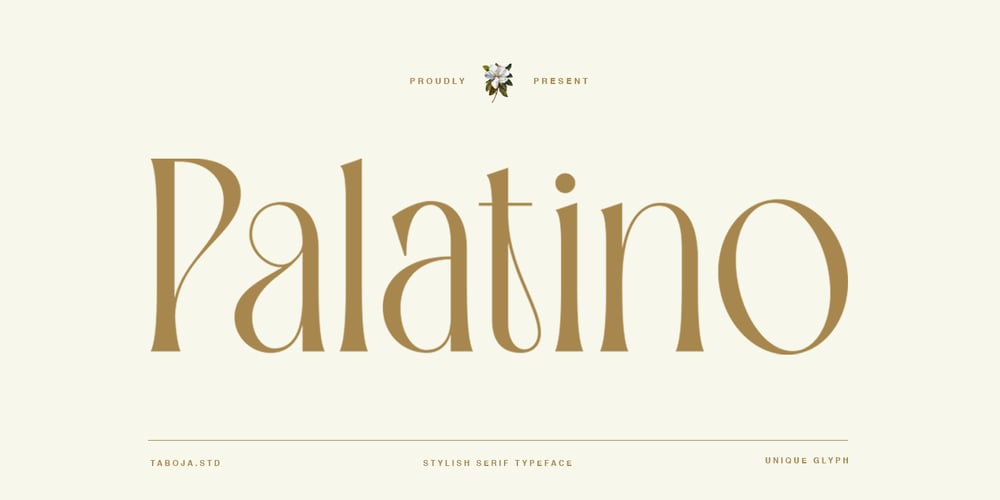
TBJ Palatino Serif Font Family was designed by Yusilo Oktaprima Ardani and published by Taboja Studio. TBJ Palatino Serif contains 1 styles and family package options. Palatino was born from the desire to create a serif font that combines elegance and simplicity. Inspired by the beauty of classic letterforms, we started by hand-drawing each character. We focused on the fine details of smooth curves and a sleek shape to create a condensed and elegant appearance.This creative process involved countless hours of hard work and dedication to ensure each letter looked perfect. We aimed to create a font that is not only visually beautiful but also versatile for various design needs. The result is Palatino, a serif font that radiates elegance and the beauty of classic letterforms in every line and curve.Includes: Regular Uppercase and Lowercase Numerals and Punctuation 100 Various Alternates And Ligatures Accented characters Multilingual Support Unicode PUA Encoded We highly recommend using a program that supports OpenType features and Glyphs panels such as Adobe Illustrator, Adobe Photoshop CC, Adobe Indesign, or CorelDraw, so you can see and access all Glyph variations.While using this product, if you encounter any problem or spot something we may have missed, please don’t hesitate to drop us a message. We’d love to hear your feedbacks in order to further fine-tune our products.Stay creative and have a wonderful day.